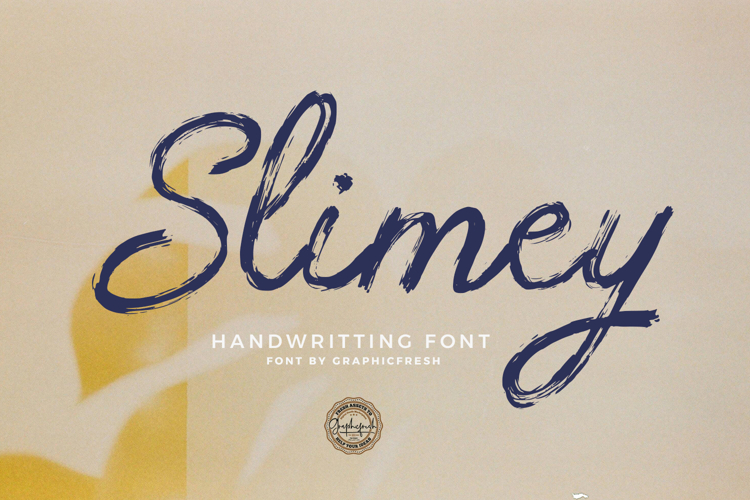
Slimey - Handwritting Script Brush Font
Slimey is a handwriting script brush font featuring fluid strokes and playful organic movement. Designed to feel spontaneous and expressive, this font blends natural brush texture with smooth handwritten flow. Its lively character and slightly irregular forms create a unique personality while keeping strong readability. Slimey works perfectly for branding, headlines, social media graphics, posters, packaging, and creative projects that need a fun yet stylish handwritten touch.